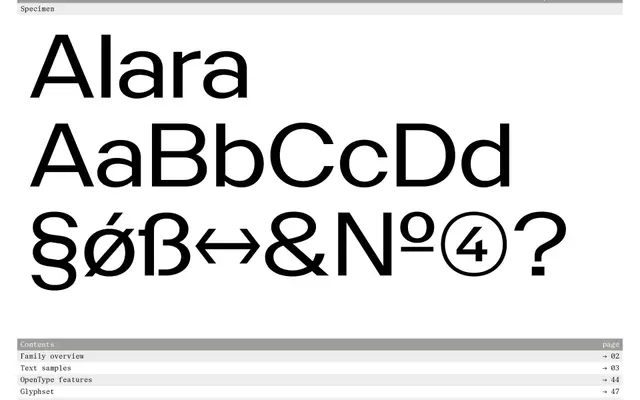
A six-weight grotesque sans from Proof of Words, each weight accompanied by an italic, spanning Light through Black.
Twelve styles in total, running from Light to Black with matching italics throughout. The specimen suggests a clean, readable grotesque suited to editorial and screen use across a broad range of settings. Little contextual information is given about the design's origins or intent, but the weight range offers practical flexibility for text and display work alike.
The specimen shows a clean, upright sans-serif with humanist touches across a wide weight range; the overall texture and letter forms suggest a contemporary grotesque lineage.